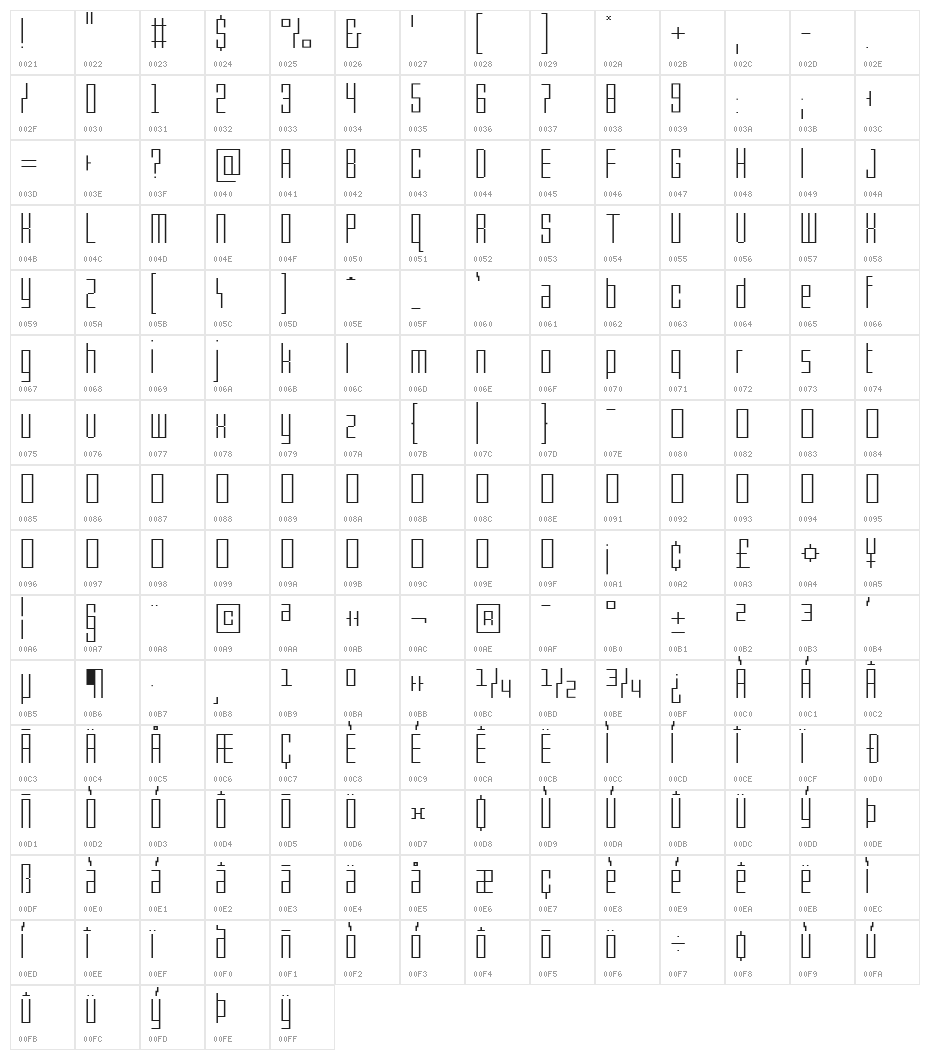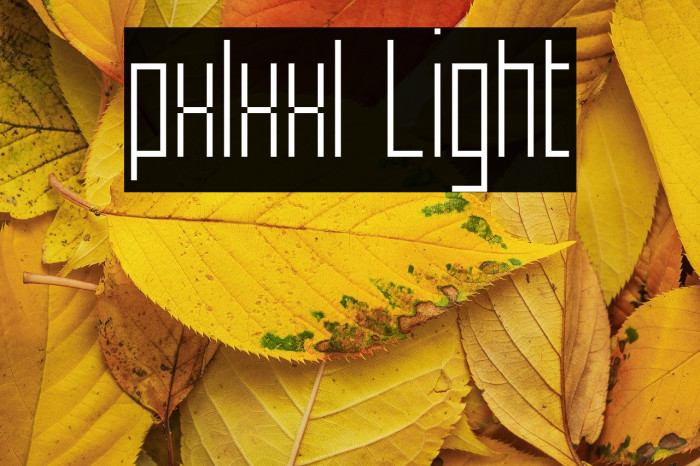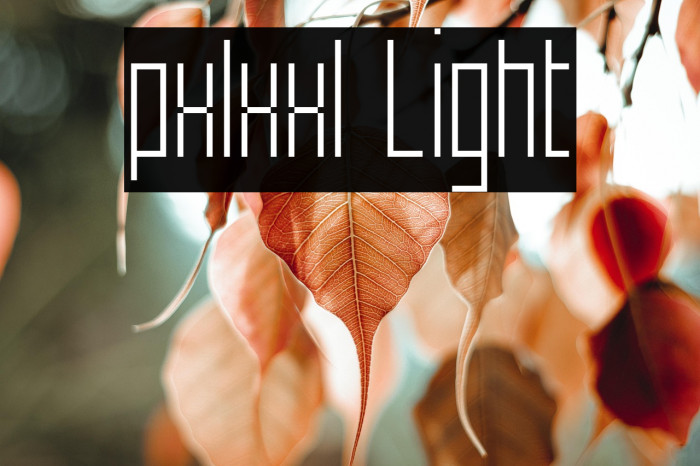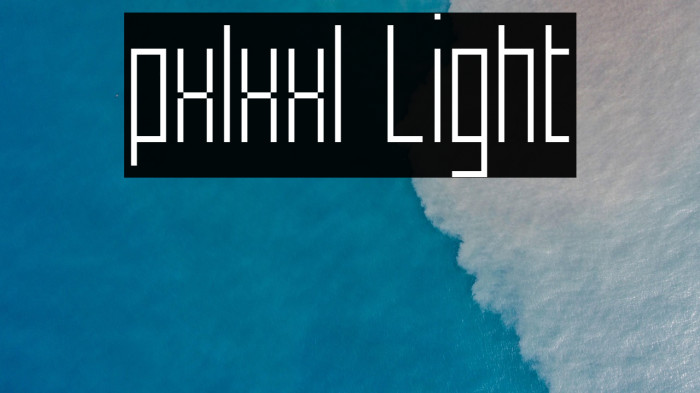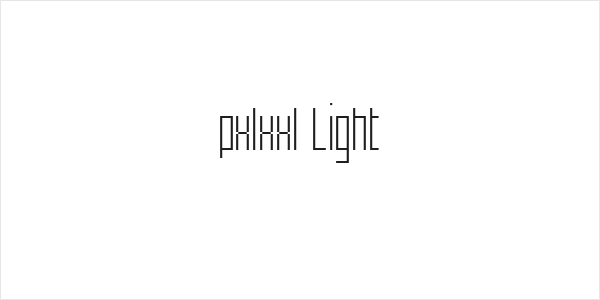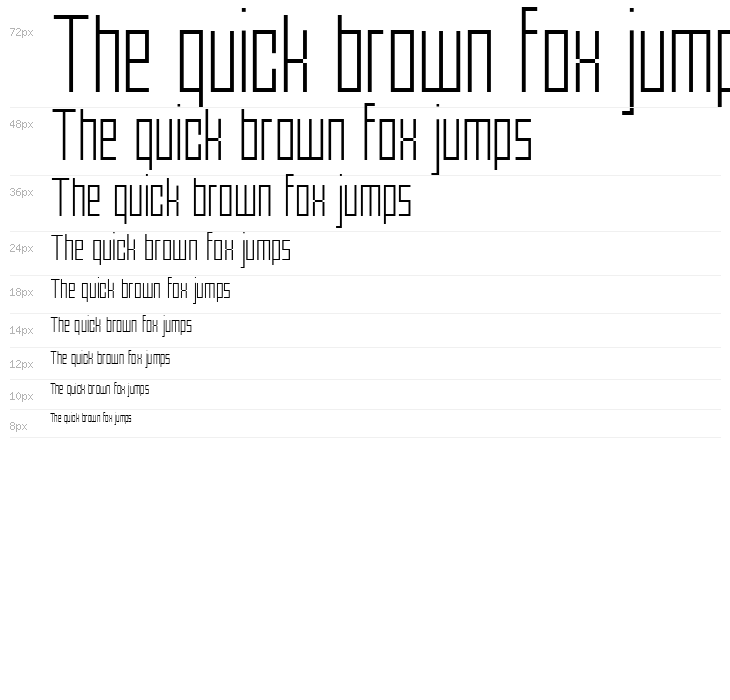
pxlxxl Light Font
pxlxxl Light Description
This font features a geometric and minimalist design, characterized by its pixelated and grid-like structure. Each character is composed of straight lines and right angles, giving it a distinctly digital and modern appearance. The uniformity in line thickness and the absence of curves contribute to its clean and structured look. This font is reminiscent of early computer graphics and digital displays, making it ideal for projects that require a retro or tech-inspired aesthetic. The characters are evenly spaced, ensuring readability while maintaining a compact form. Its simplicity and clarity make it suitable for both display and text purposes.
| Use Case | Headlines, Logos, Digital interfaces |
| Proposed Projects | Ideal for digital art, retro-themed designs, tech branding, and video game interfaces. |